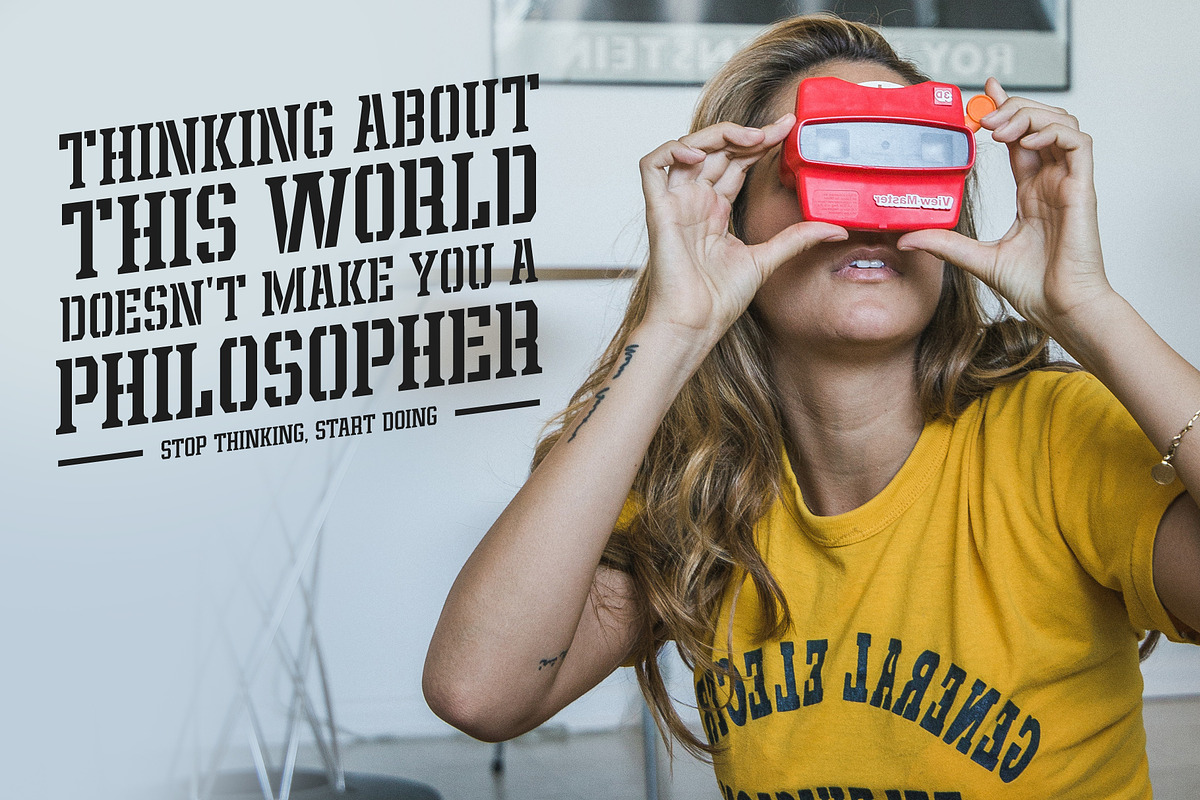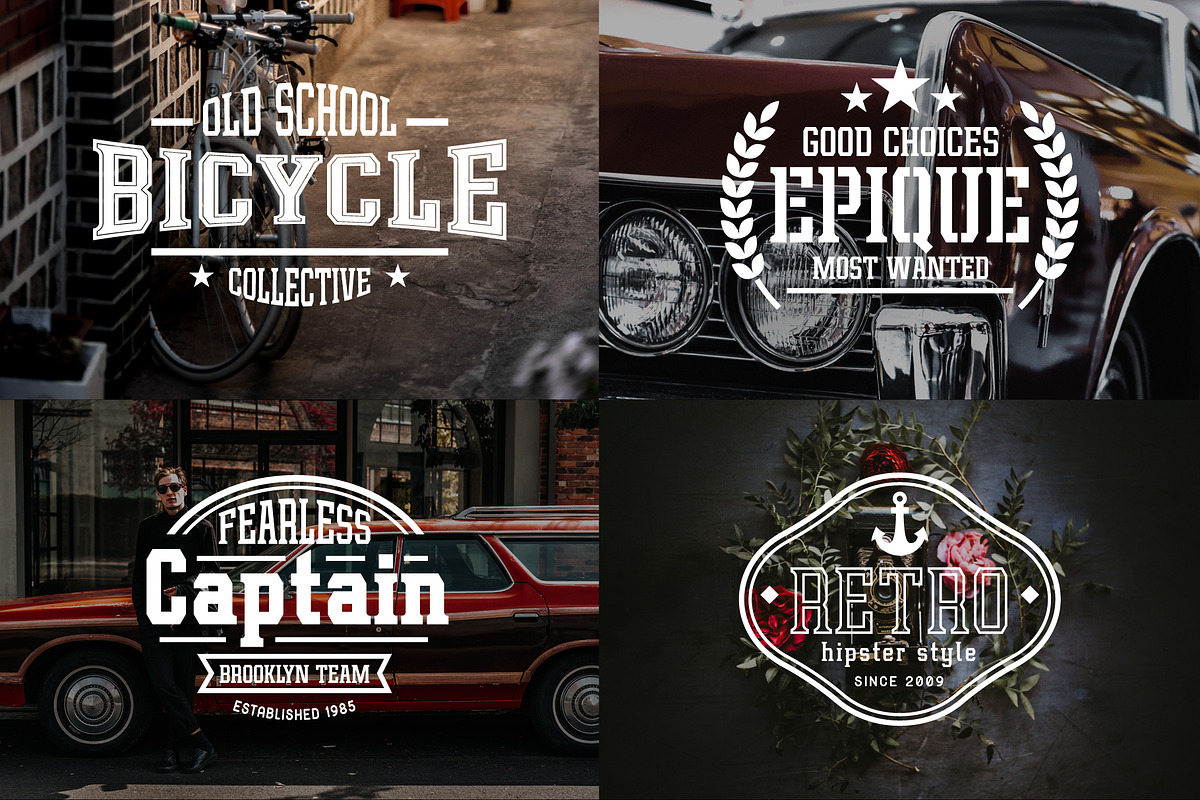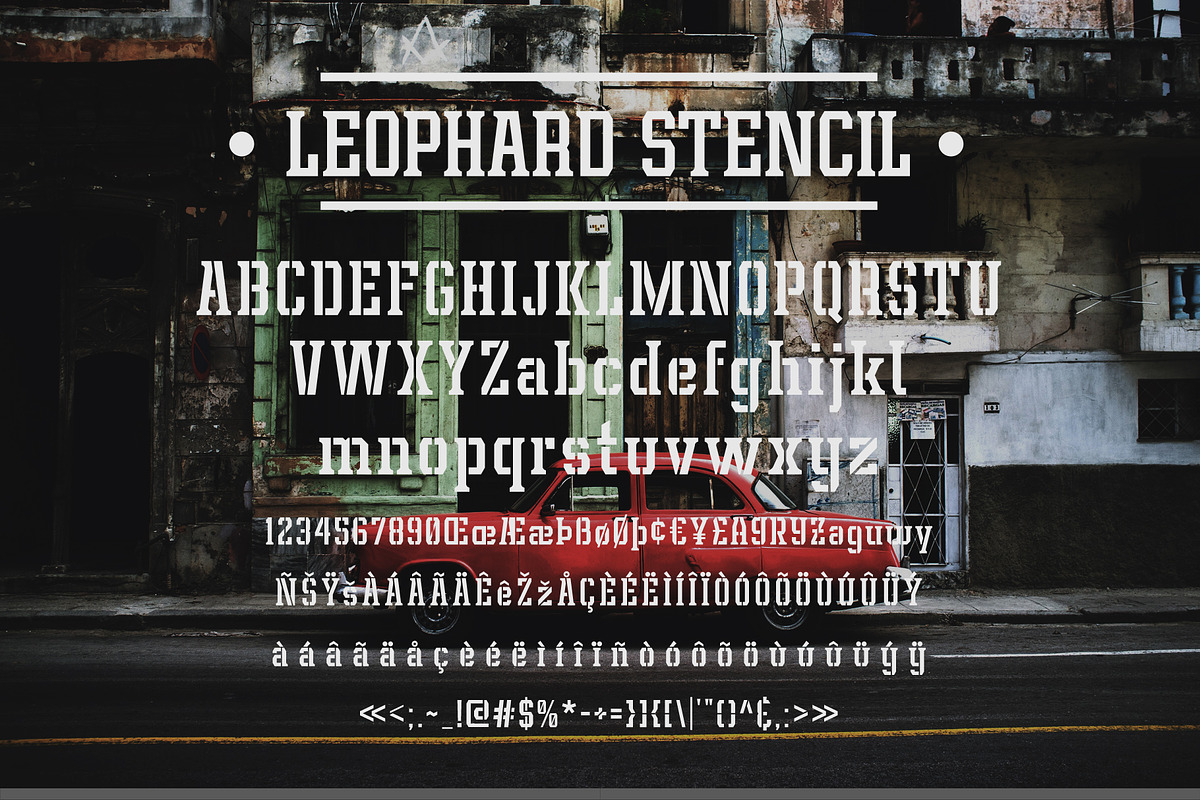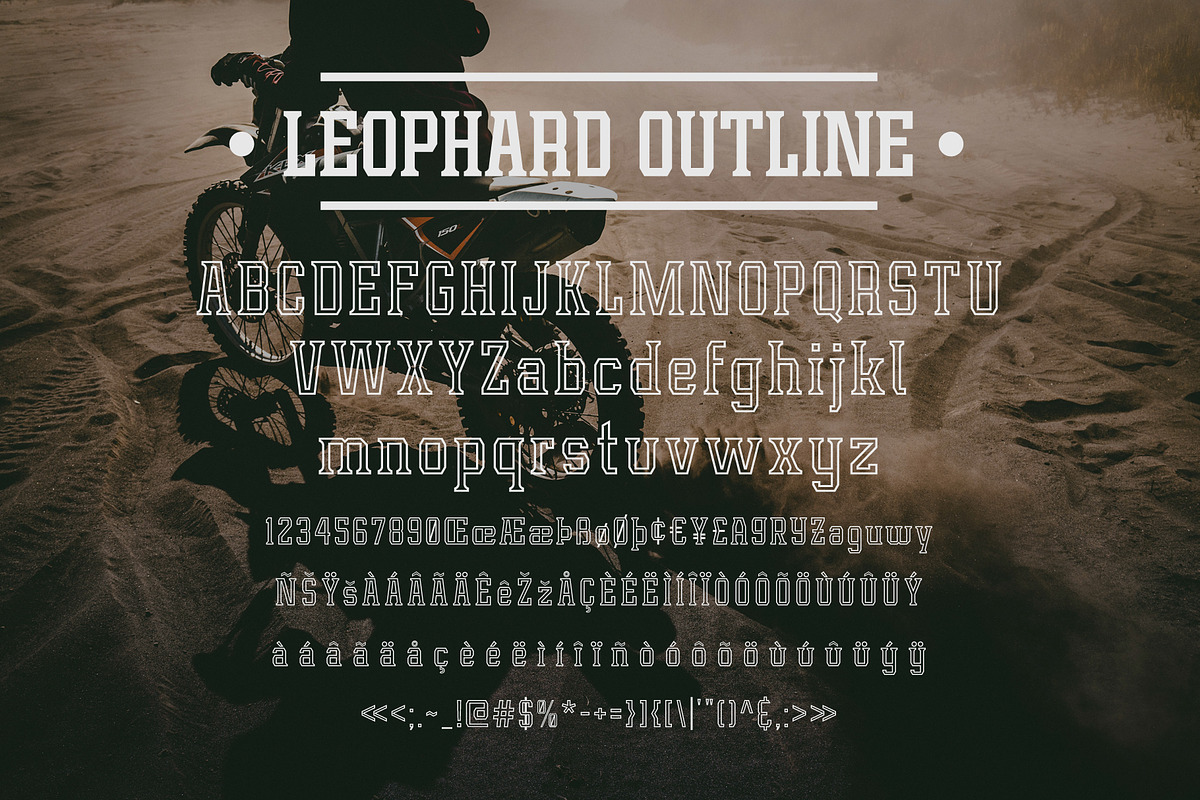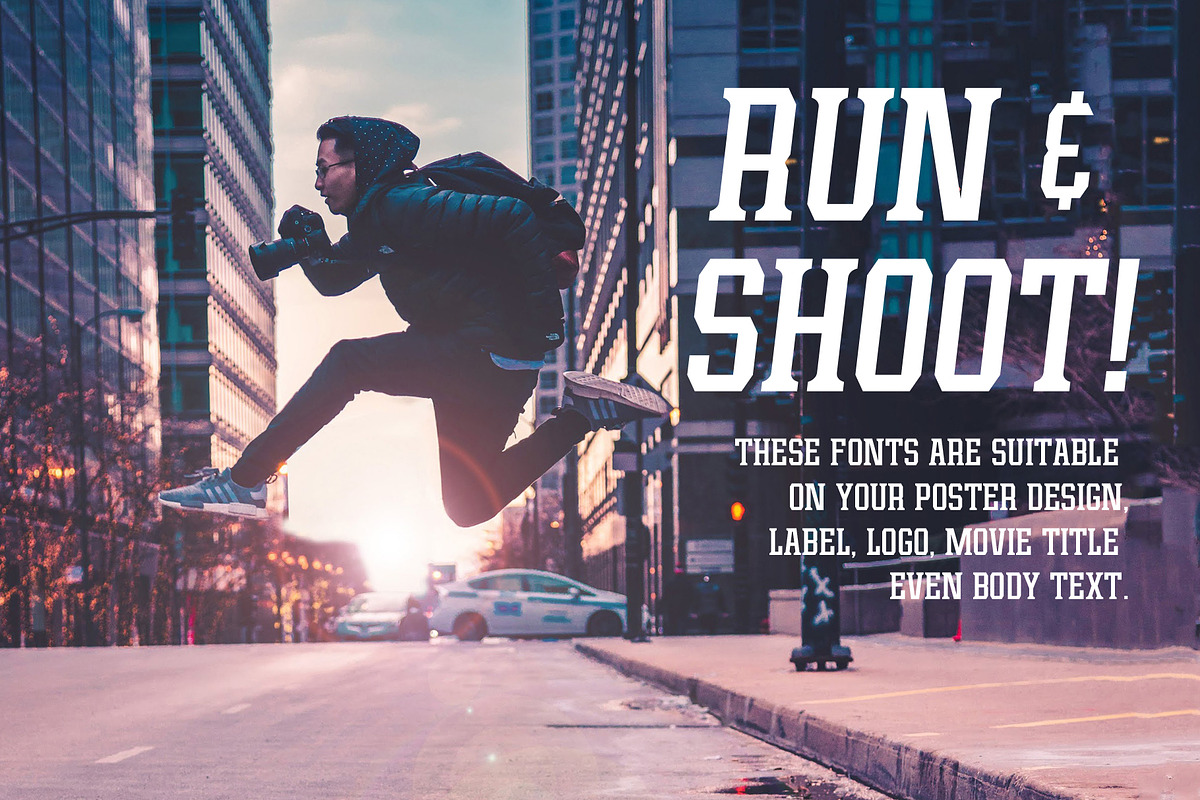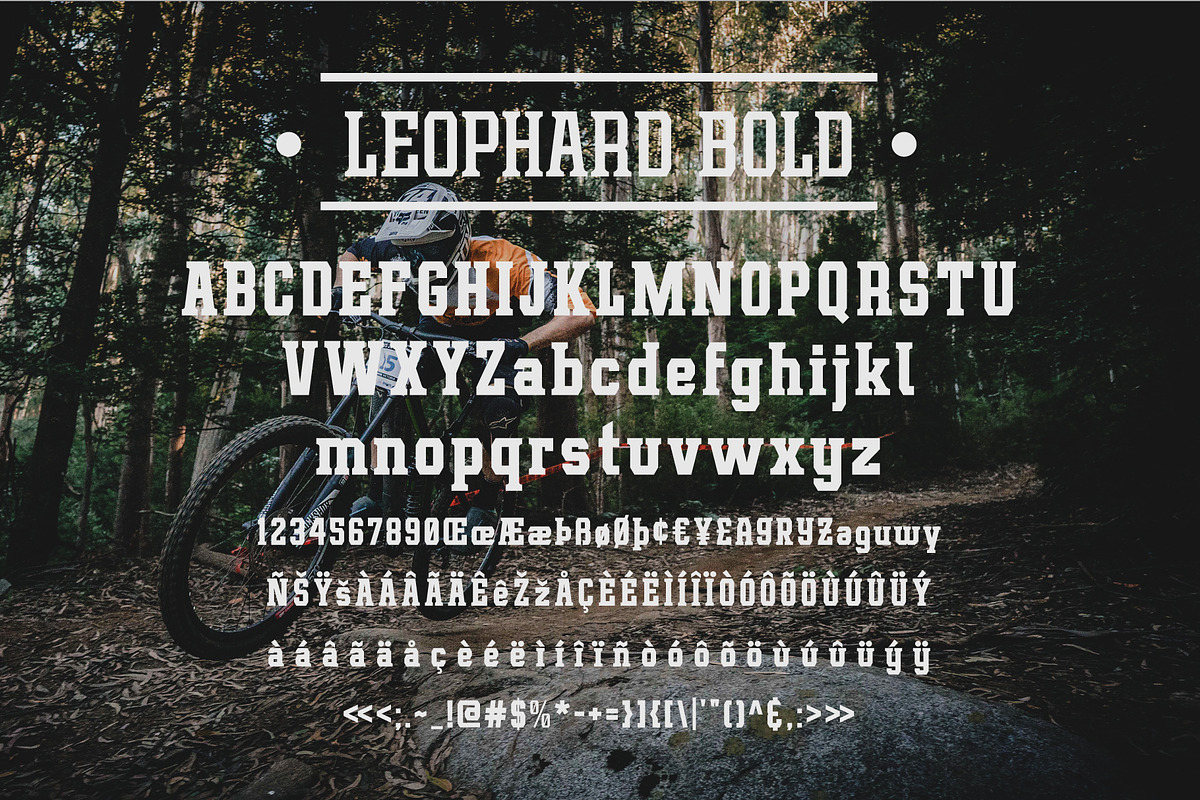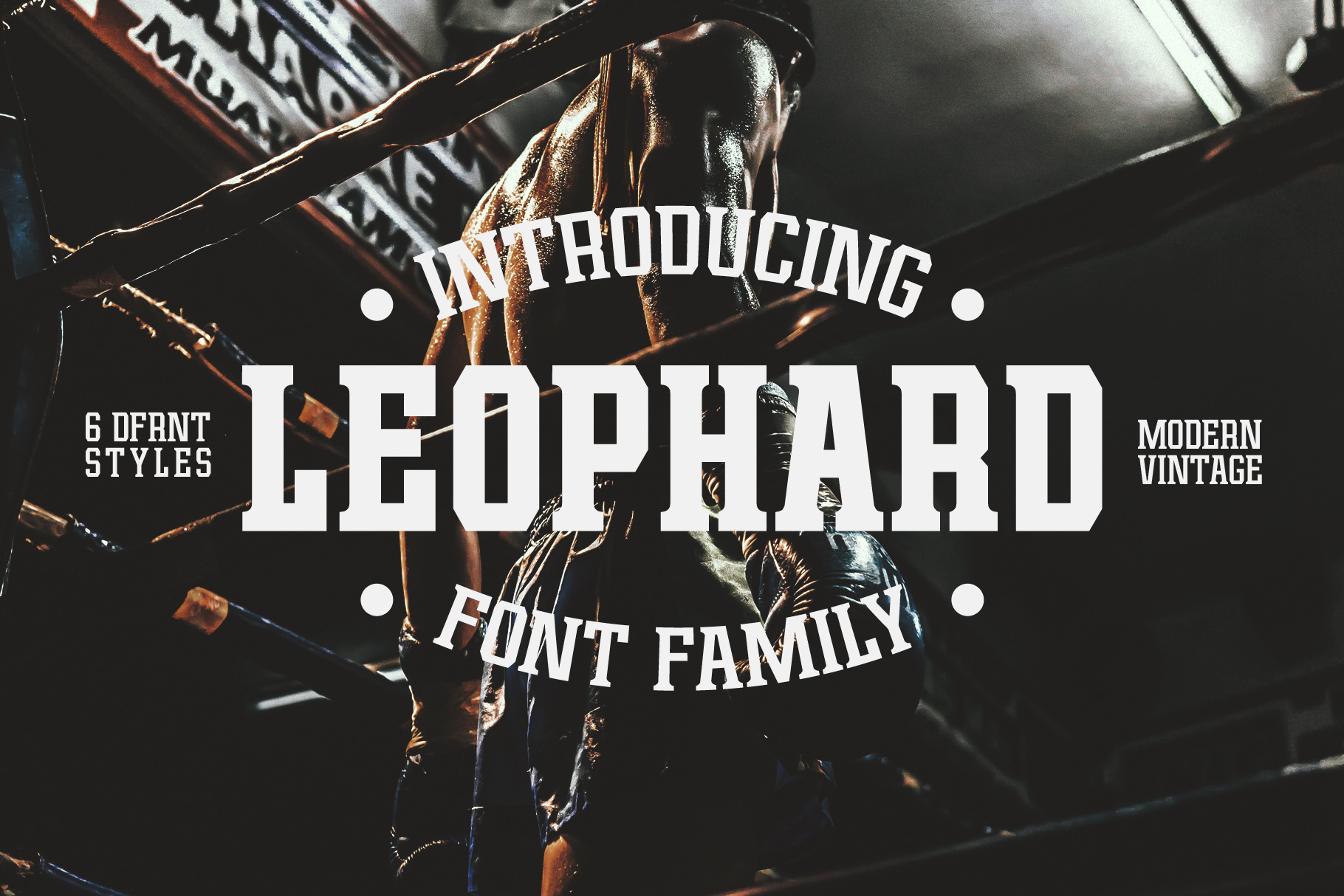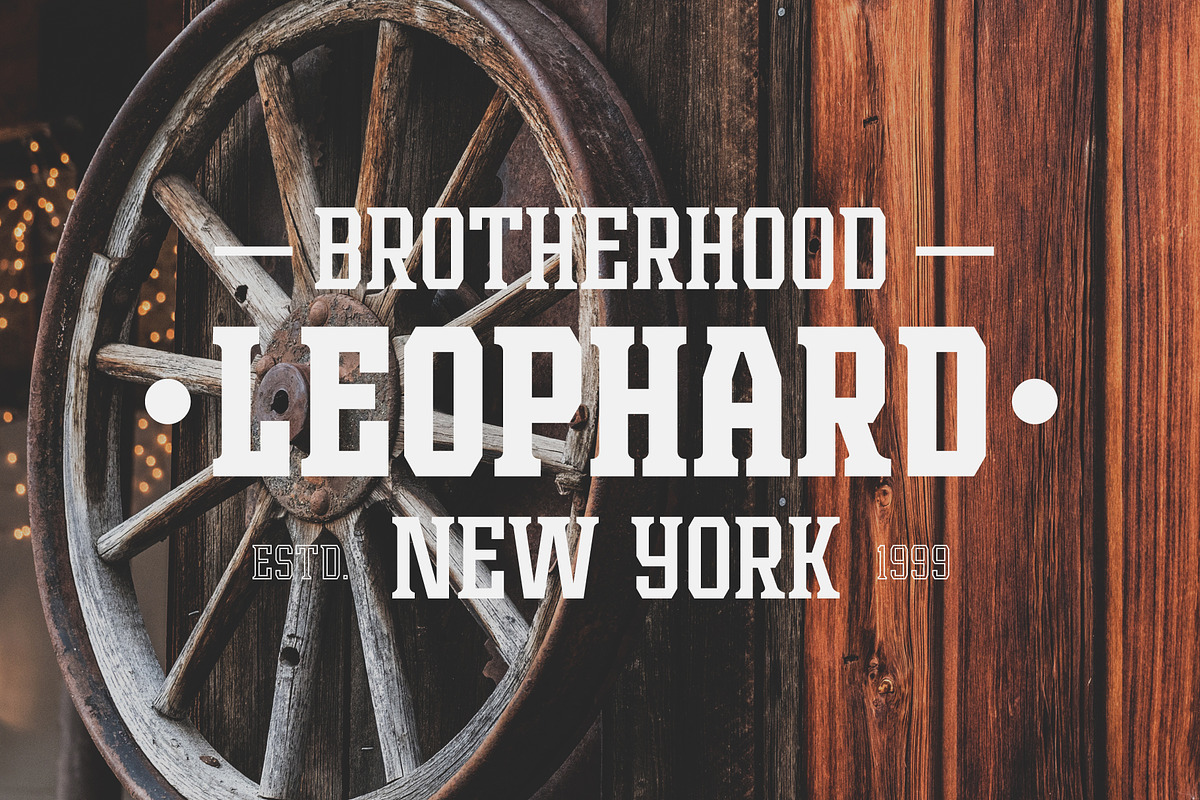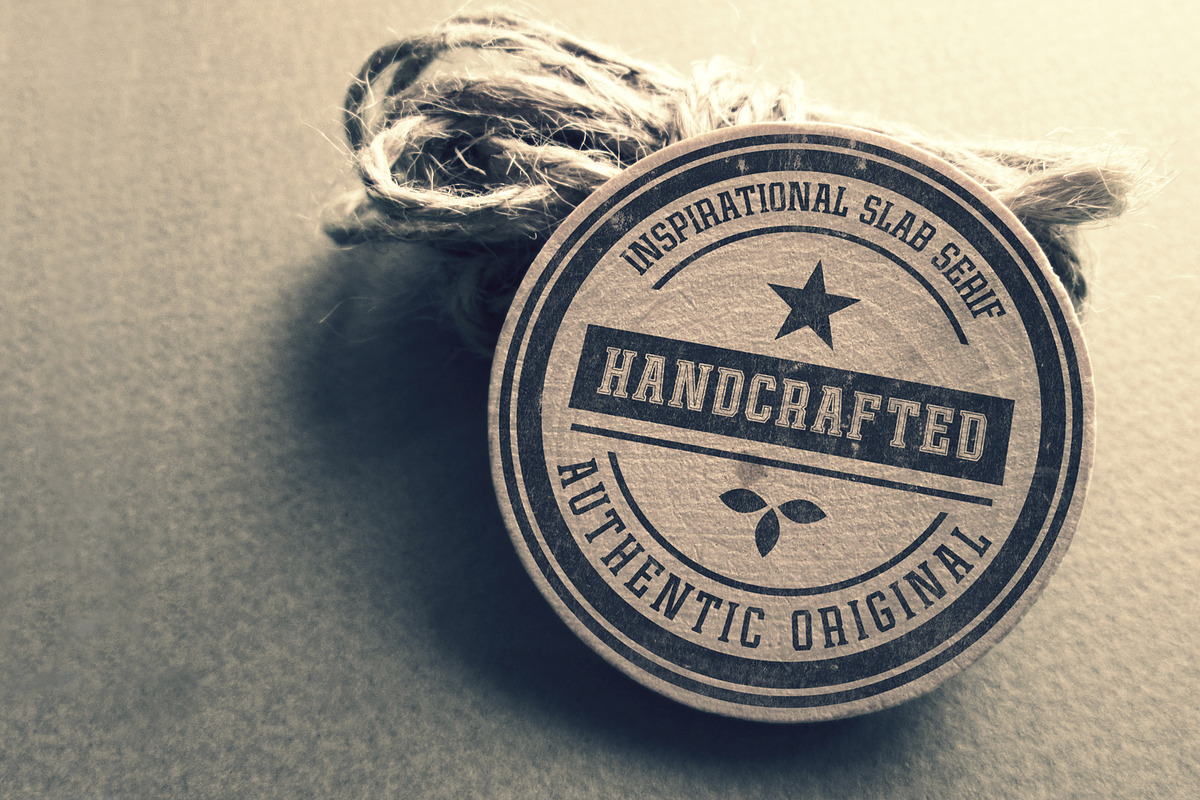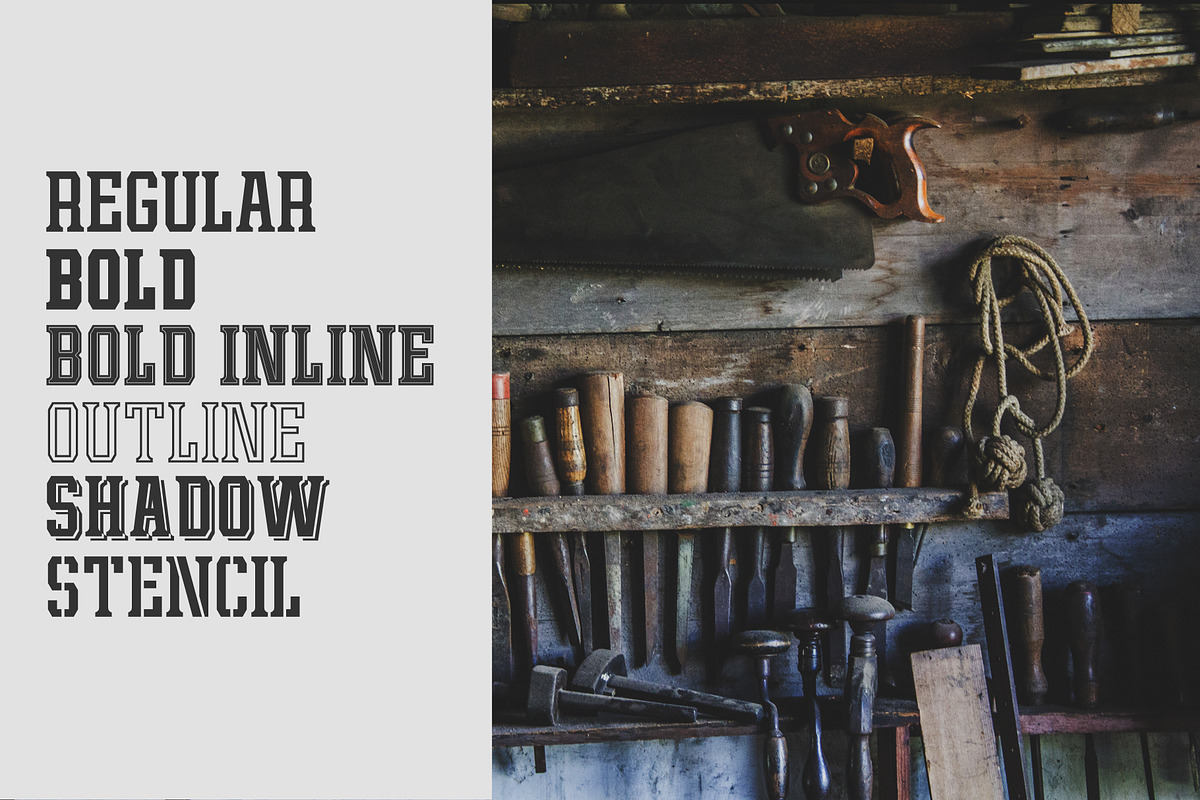
Leophard Font Family
Create a great combination design with this font family
Leophard font family the modern slab serif which inspired from sporty design and vintage style. There are 6 different style that you can apply in your design project. This font made with tenacious basic shapes, visuality of strength, old school movement, and modern minimalism style.
- Regular style - good for your title, sub-headline or body text which concern in readibility.
- Bold style - recommended for your title, naming, label or logo.
- Bold inline style - is cool for your big typographic design which is showing the precission of the shapes.
- Outline style - good for your additional text, or minimalism design purposes.
- Shadow style - suitable for vintage logo, minimalist effect and title.
- Stencil style - inspired from street art and letterpress design. recommended for design project which visualize strength and movement.
Make a great combination on your label design, brand, poster headline, movie title, store front, monogram, sport design even merchandise design.
- Symbol
- Standard accents
- Some alternates character.